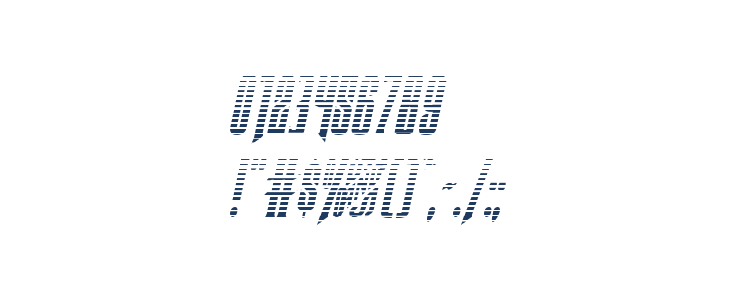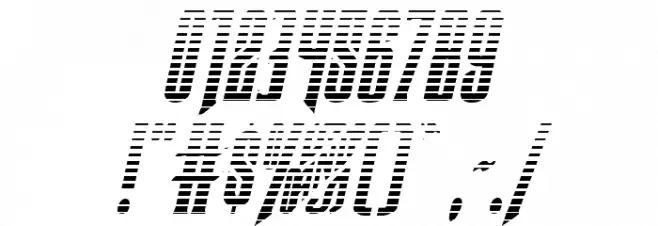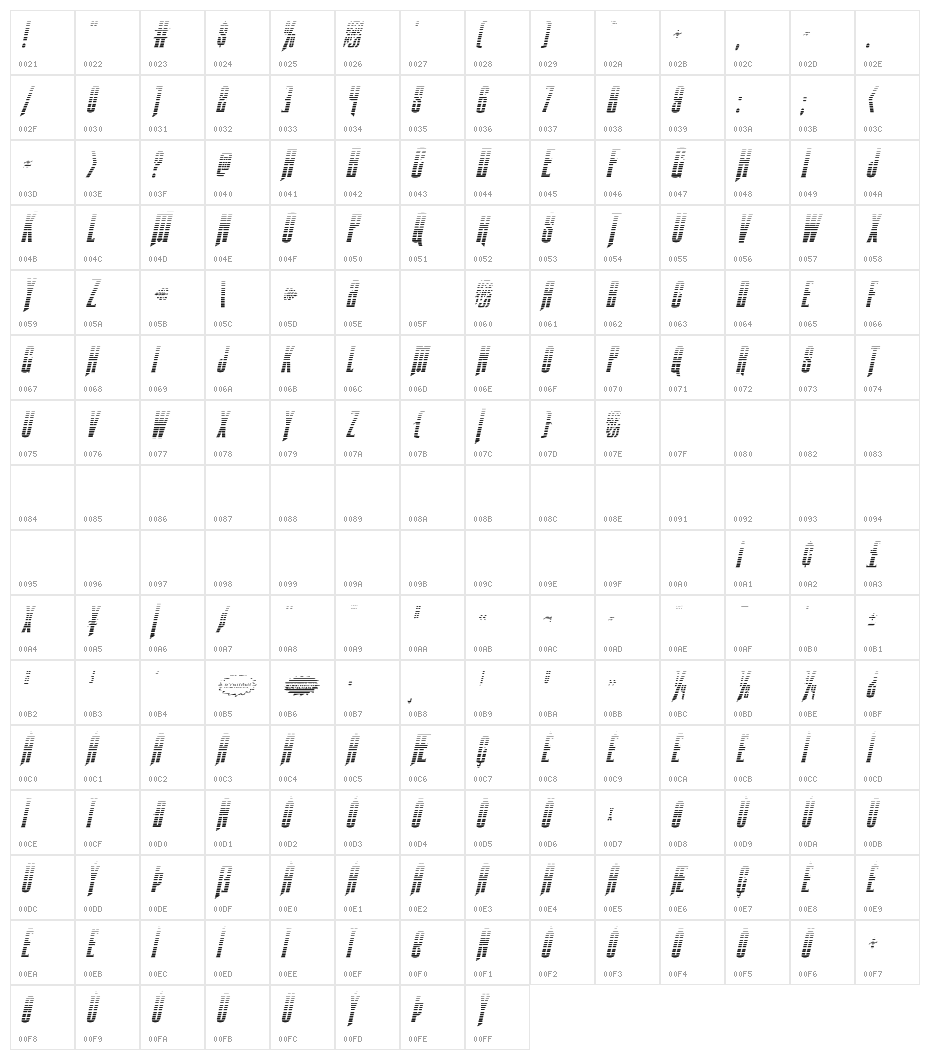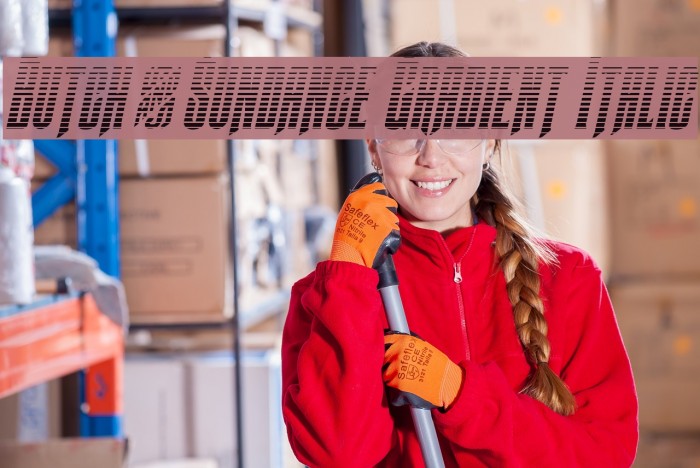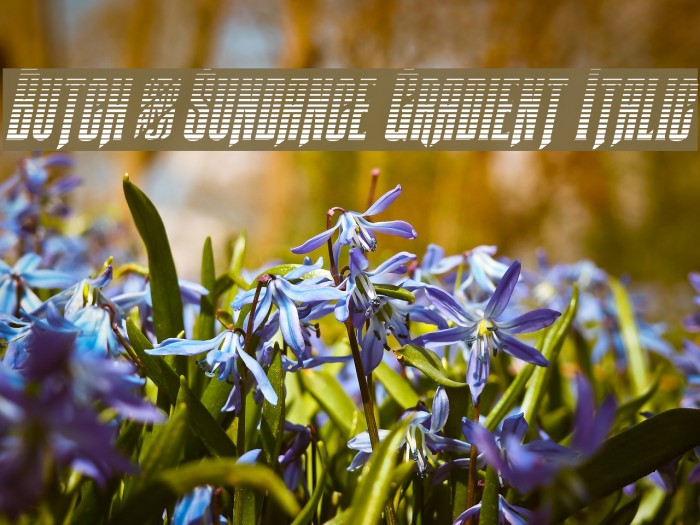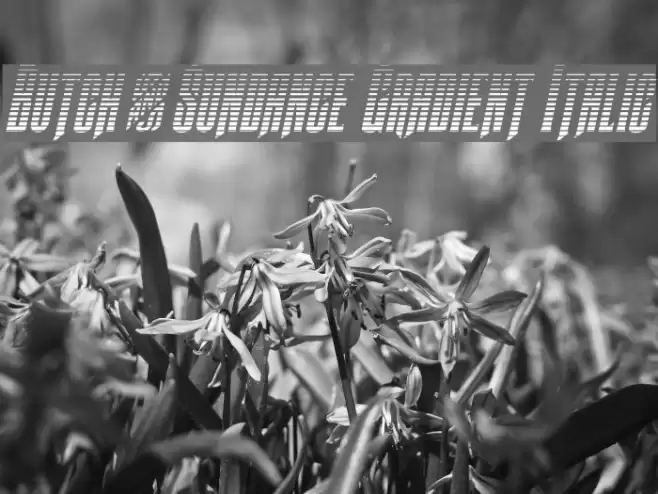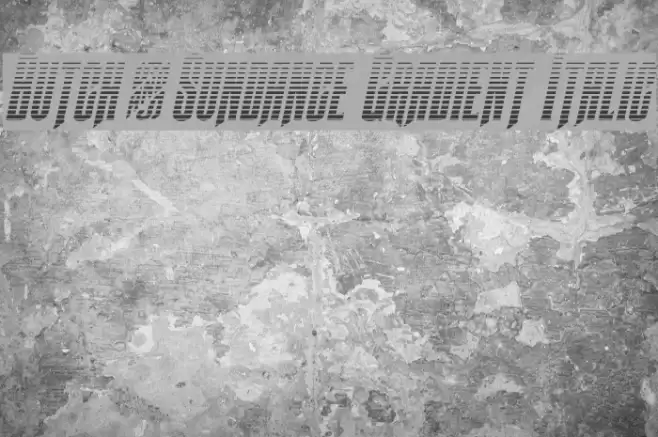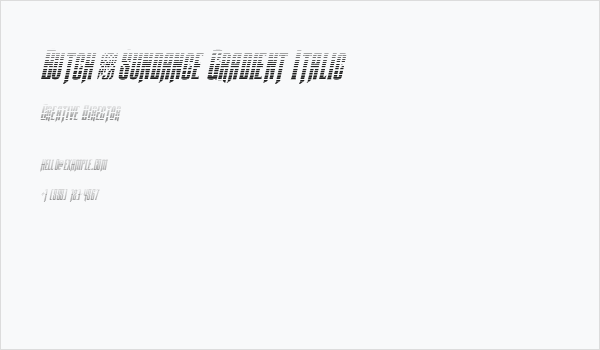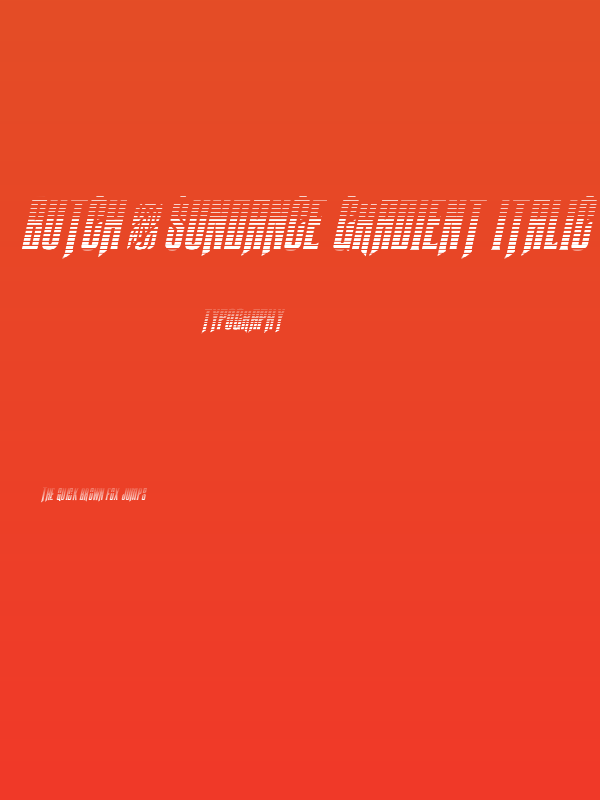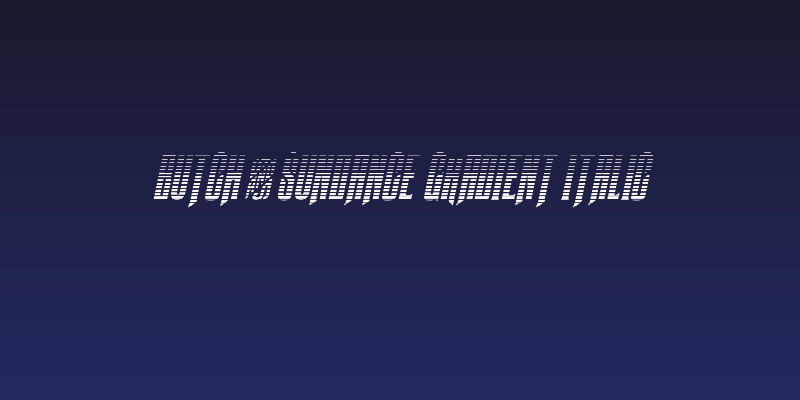
Butch & Sundance Gradient Italic Font
Butch & Sundance Gradient Italic Description
This font features a bold, italicized style with a distinctive gradient effect that creates a sense of movement and dynamism. The characters are composed of horizontal lines that vary in thickness, giving the font a unique striped appearance. The slanted orientation adds a sense of speed and urgency, making it ideal for attention-grabbing designs. The uppercase and lowercase letters maintain a consistent style, with numerals and special characters following the same design principles. This font is particularly suited for modern and edgy projects where a strong visual impact is desired.
| Proposed Projects | Ideal for posters, logos, and branding materials that require a modern and dynamic look. |